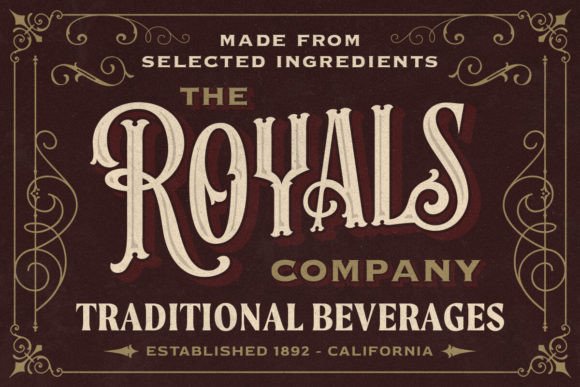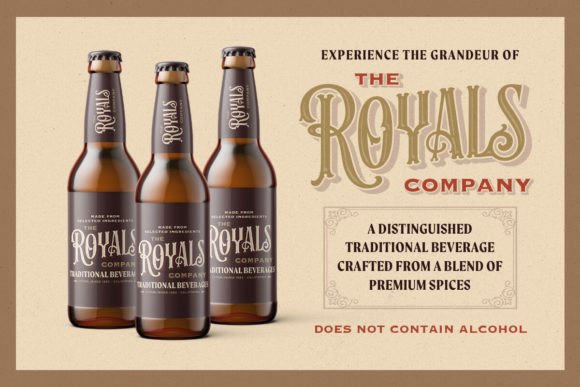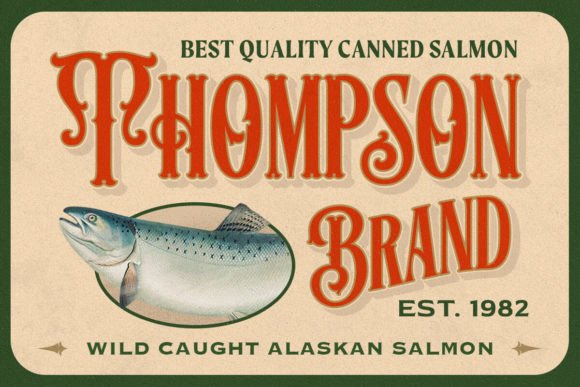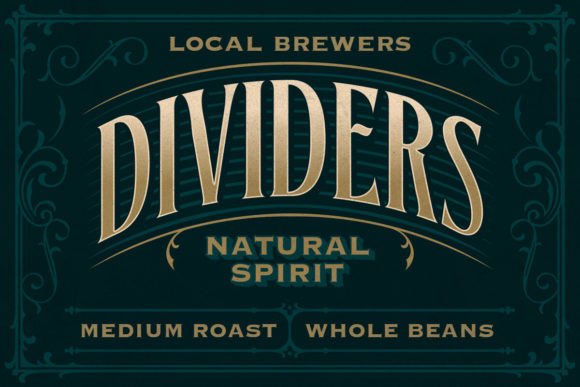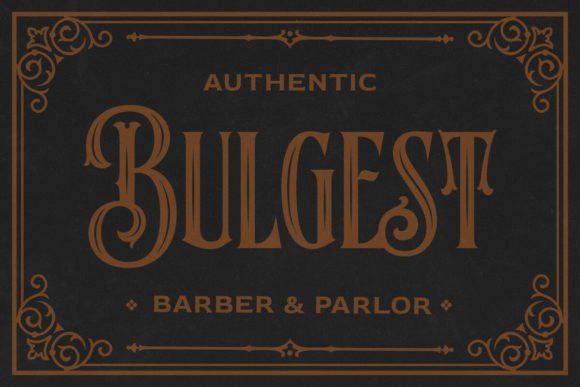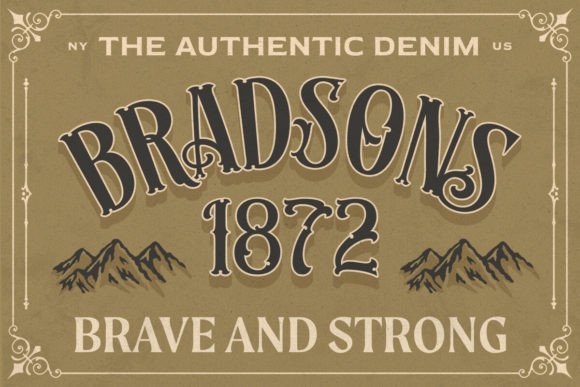
Introduction to Ronders Font
As a designer, there’s nothing quite like the thrill of discovering a new font that perfectly captures the essence of your creative vision. For me, that moment came when I stumbled upon the Ronders Font, a stunning typeface that transported me back to the ornate elegance of a bygone era.
With its bold, solid lines and vintage flair, Ronders Font is the perfect design resource for any project that demands a high-quality, retro touch. Whether you’re working on a creative project that requires a unique headline font or need a distinctive logotype for your brand, Ronders Font is an excellent choice. Its versatility and classic appeal make it an ideal addition to any designer’s toolkit, and the best part? It’s available for free download, complete with a transparent background for seamless integration into your design.
Key Features of Ronders Font
- High-quality design resource ideal for creative projects requiring unique typography.
- Characterized by its bold and modern aesthetic, making it a great choice for contemporary design projects.
- Comes with a comprehensive character set, including uppercase and lowercase letters, numbers, and punctuation marks.
Honest Review: Ronders Font
As a designer, I’m always on the lookout for high-quality fonts to elevate my creative projects. I recently had the chance to try out the Ronders Font, and I have to say, it’s been a great addition to my design resource library.
Here’s what I like about the Ronders Font:
- ✨ The font has a unique and stylish design that adds a touch of sophistication to any project.
- ⚠️ The font may not be suitable for body text, as it can be a bit challenging to read in smaller sizes.
- ⚠️ Some users may find the font a bit too ornate for their taste.
Overall, I’m impressed with the Ronders Font and would definitely recommend it to designers looking for a high-quality, unique font to add some flair to their creative projects.
Ronders Font is commonly used for creative projects such as graphic design, digital art, and typography. Its transparent background makes it easy to use in various design scenarios. Some common use cases include:
- Creating eye-catching logos and branding materials
- Designing engaging social media graphics
- Developing high-quality typography for publications
Alternatives to Ronders Font
Montserrat is a high-quality sans-serif font that’s perfect for creative projects requiring a clean and modern design resource. It features a transparent background, making it ideal for logo designs, titles, and headings. When to use: Logos, titles, headings, and any design where a modern and clean look is required. Compared to Ronders Font, Montserrat has a more geometric and urban feel, making it suitable for city-related designs.
Great Vibes is a stylish and elegant script font that’s ideal for creative projects requiring a touch of sophistication and class. It features a transparent background and is perfect for wedding invitations, greeting cards, and any design where a romantic feel is required. When to use: Wedding invitations, greeting cards, and any design where a touch of elegance is needed. Compared to Ronders Font, Great Vibes has a more refined and sophisticated feel, making it suitable for high-end designs.